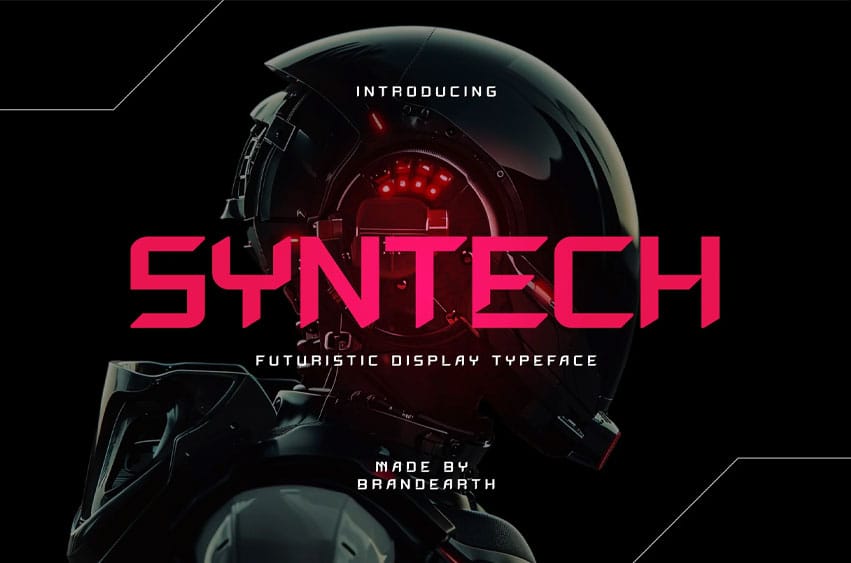
Syntech Font Step into the future with Syntech, a bold and edgy typeface designed for sci-fi lovers and tech-forward creatives. With its sharp angles, geometric lines, and digital-inspired aesthetics, Syntech is perfect for gaming interfaces, cyberpunk posters, tech branding, and space-age visuals. This typeface radiates innovation and power, making your designs feel like they’re straight out of tomorrow.
Whether you’re designing for a futuristic film, a tech startup, or a bold brand, Syntech brings that high-tech energy to the forefront.